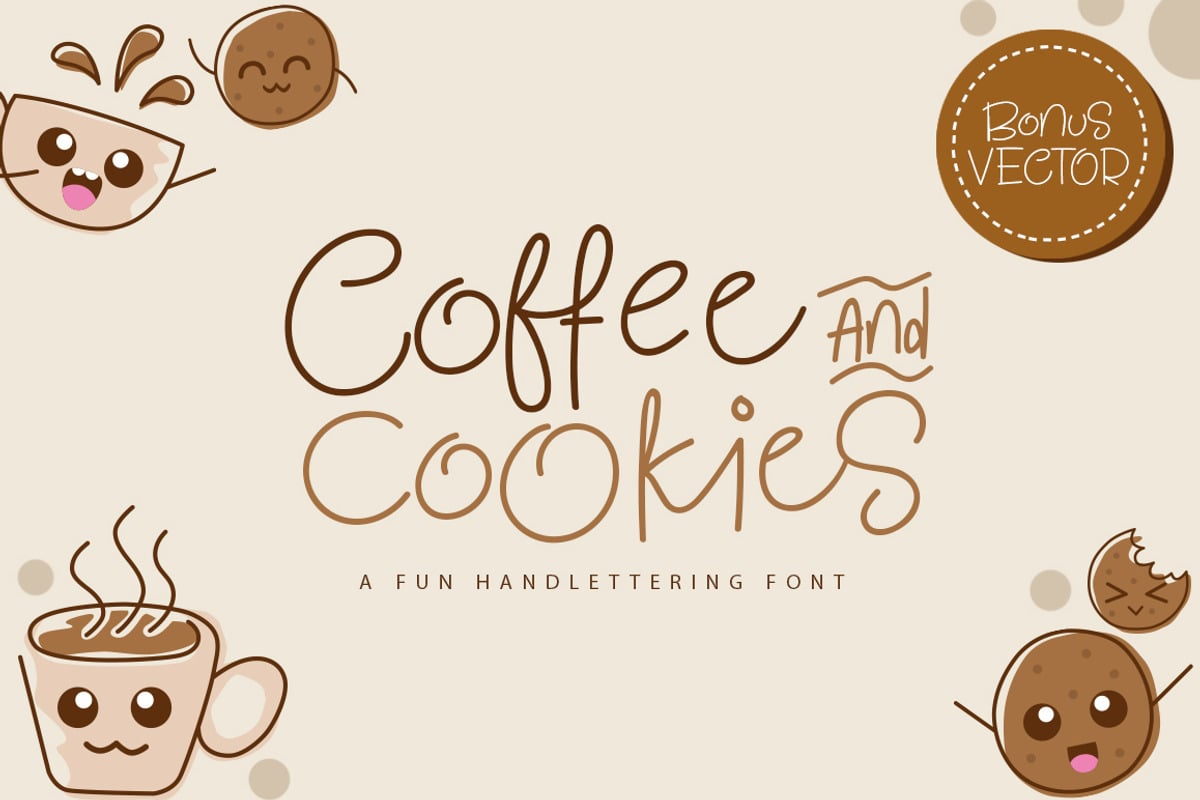
Coffee and Cookie Font
Add a cheerful, monoline charm to your designs with this delightfully playful script font. Coffee and Cookies is a fun handlettered typeface that brings warmth and personality to any creative project. This monoline script font captures a lighthearted, friendly aesthetic that's perfect for brands and designs that want to feel approachable and joyful. Ideal applications include: Logo design and branding projects Greeting cards and invitations Poster and marketing materials Any design requiring a c...